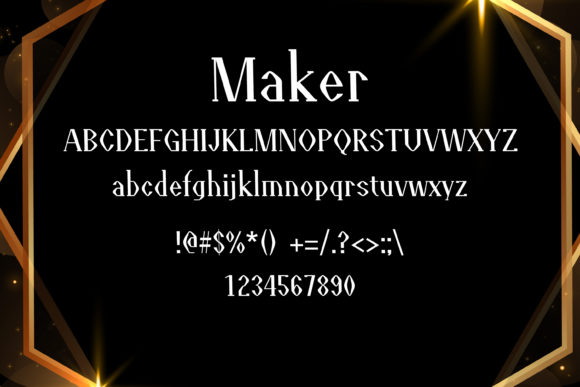
Introduction to Maker Font
Have you ever stared at a blank canvas, wondering where to start your next creative project? You’ve got a vision, but the perfect font to bring it to life is nowhere to be found. That’s where the Maker Font comes in – a game-changing design resource that adds a touch of boldness and strength to any modern idea.
As a designer, you know how crucial the right font can be in elevating your work. And with the Maker Font, you’ll be able to take your creative projects to the next level. Whether you’re working on a graphic design, logo design, or any other type of visual project, this high-quality font is sure to make a lasting impression.
Key Features of Maker Font
- Designed to be highly versatile, making it an ideal choice for various design elements, from logos to typography.
Honest Review: Maker Font
As a designer, I’m always on the lookout for high-quality design resources that can elevate my creative projects. Recently, I stumbled upon the Maker Font, and I’m excited to share my honest review.
- Maker Font offers a clean and modern design aesthetic that’s perfect for tech-related projects or any other creative endeavor.
- The font is highly customizable, making it easy to adjust the style to fit your design needs.
- One of the standout features of Maker Font is its transparent background, which allows for seamless integration into any design.
- While Maker Font is highly versatile, it may not be suitable for all types of projects. For example, it may not be the best choice for projects that require a more traditional or formal tone.
- As with any font, there may be some limitations when it comes to font sizes and styles.
Overall, I’m impressed with the Maker Font and would highly recommend it to designers looking for a high-quality design resource. Its clean design, versatility, and free download make it an excellent addition to any design toolkit.
Maker Font: A Comprehensive Guide
What is Maker Font?
Maker Font is a high-quality design resource ideal for creative projects that require a unique and modern look. This versatile font is available for free download and features a transparent background, making it easy to customize and integrate into various design applications.
Tips for Getting the Most Out of Maker Font
To get the most out of Maker Font, experiment with different font sizes, colors, and styles to create a unique and visually appealing design. You can also combine Maker Font with other design elements, such as images and graphics, to add depth and interest to your project.
Common Use Cases for Maker Font
Maker Font is ideal for a variety of creative projects, including logos, brochures, business cards, and social media graphics. Its modern and unique design makes it perfect for startups, entrepreneurs, and small businesses looking to establish a strong brand identity.